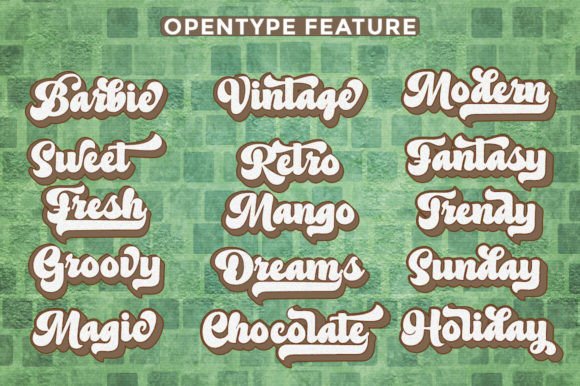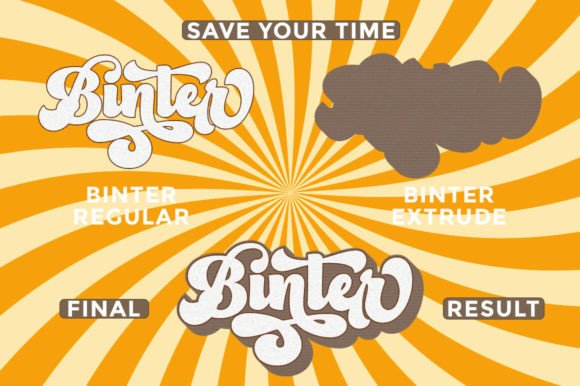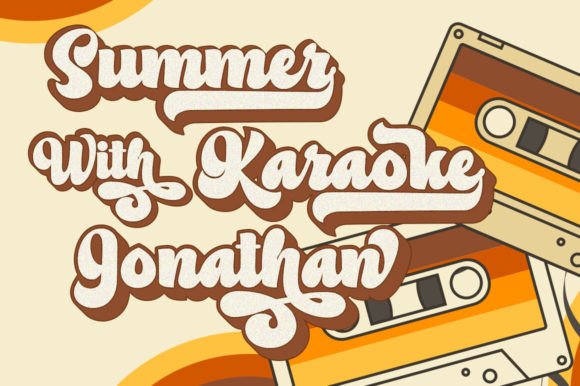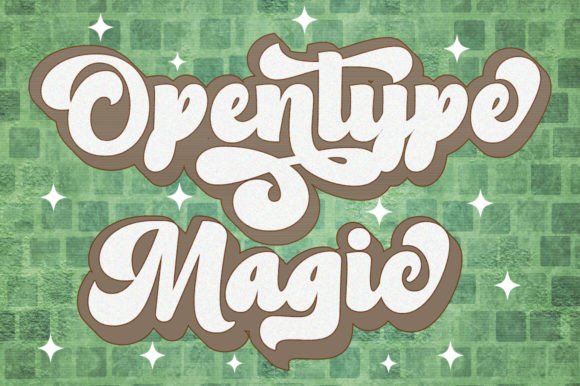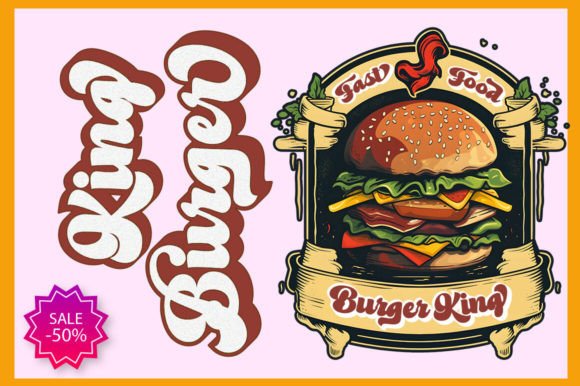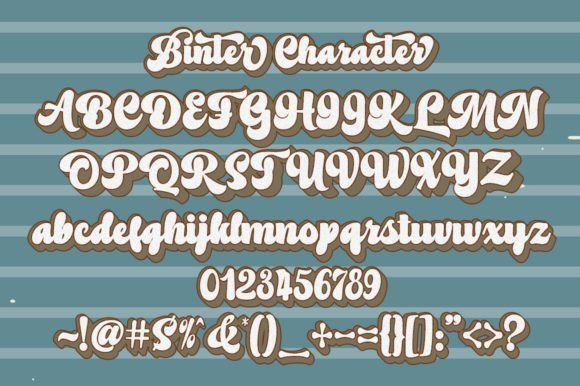
Introducing Binter Font: A Bold Retro Script to Take You Back to the 60s
Are you a designer or crafter looking for a unique and stylish font to add a touch of nostalgia to your projects? Look no further than Binter Font, a bold retro script that will transport you back to the fabulous 1960s. This exciting typeface is perfect for creating eye-catching logos, invitations, labels, and more, with an extrude version that makes it easy to achieve a retro effect.
A Font that’s Full of Character
Binter Font is a true showstopper, with a bold and playful design that’s sure to turn heads. Its retro charm is perfect for designers and crafters who want to add a touch of vintage flair to their work, whether it’s a logo, invitation, or packaging design. The font’s extrude version takes it to the next level, allowing you to create a 3D effect that’s sure to make your project stand out.
One of the best things about Binter Font is its versatility. This amazing typeface is suitable for a wide range of applications, including:
- Logos: Create a bold and eye-catching logo that’s sure to make your brand stand out.
- Invitations: Add a touch of elegance and sophistication to your invitations, whether it’s a wedding, birthday, or other special occasion.
- Labels: Create labels that are both functional and stylish, perfect for products, packaging, or crafts.
- Magazines and books: Add a touch of retro flair to your publications with Binter Font.
- Greeting and wedding cards: Create beautiful and unique cards that will make your loved ones feel special.
- Packaging: Add a touch of style and sophistication to your packaging designs.
- Fashion and makeup: Use Binter Font to create stunning fashion and makeup designs that are sure to turn heads.
- Stationery: Create beautiful and unique stationery that’s perfect for everyday use.
- Novels and other written works: Add a touch of elegance and sophistication to your written works.
- Advertising: Use Binter Font to create eye-catching ads that are sure to grab attention.
Another great thing about Binter Font is that it’s PUA (Private Use Area) encoded, which means you can access all of the amazing glyphs and ligatures with ease. This makes it easy to get the most out of this incredible font, and to create unique and eye-catching designs that will make your project stand out.
Why Choose Binter Font?
So why choose Binter Font for your next project? Here are just a few reasons:
- Unique and stylish design that’s sure to turn heads.
- Bold and playful, with a retro charm that’s perfect for adding a touch of nostalgia to your work.
- Extrude version for easy creation of a retro effect.
- PUA encoded for easy access to glyphs and ligatures.
- Versatile and suitable for a wide range of applications.
Get Ready to Take Your Designs to the Next Level